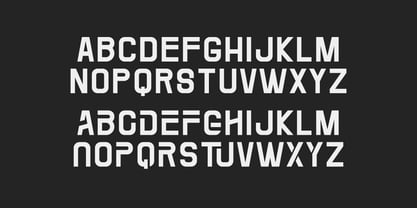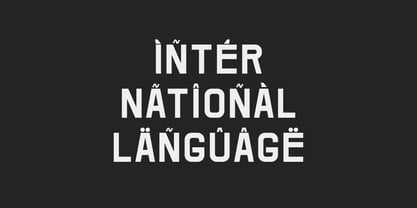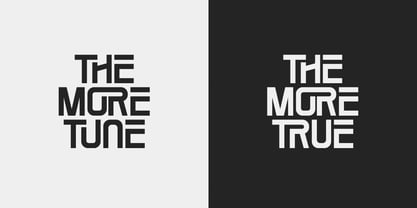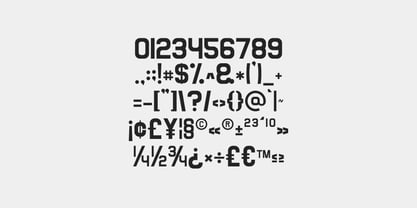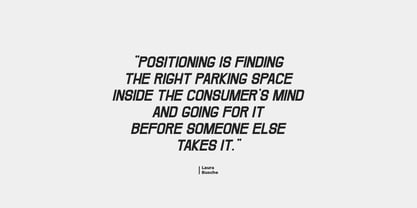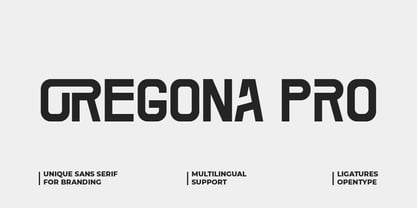
Oregona Pro
La famille de polices Oregona Pro a été conçue par Iwan Alwan et publiée par Artiveko. Oregona Pro contient 2 styles et options de package familial. En savoir plus sur cette famille
Oregona Pro is the full and polished evolution of the original Oregona typeface. Built as a modern geometric sans serif, this font combines clean structure with subtle uniqueness in every character. The letterforms are bold, balanced, and highly readable, making Oregona Pro perfect for logos, branding, posters, headlines, web design, packaging, and digital products. This complete version includes expanded multilingual support, refined alternates, and smooth spacing for professional typography results. Whether you’re designing for startups, tech brands, creative studios, or modern editorial layouts, Oregona Pro delivers clarity, strength, and contemporary style in every composition. Oregona Pro is not just a font — it’s a modern identity tool for confident design.
Concepteurs: Iwan Alwan
Fonderie: Artiveko
Artiveko is a font design team based in Indonesia, comprised of several talented font designers who commenced their careers in the font design industry in 2020. With a dedicated focus on crafting fonts, the team members bring their collective expertise and passion to every project they undertake. Situated in Indonesia, Artiveko draws inspiration from the vibrant cultural landscape of the region, infusing their creations with unique flavors and aesthetics.The team's font collection encompasses a diverse range of styles, including serif, sans serif, handwritten, and script typefaces. Each typeface is meticulously crafted to meet the demands of modern design while offering versatility and functionality across various applications. Whether it's the classic elegance of serif fonts, the contemporary appeal of sans serif designs, the personal touch of handwritten scripts, or the expressive flourishes of script fonts, Artiveko ensures that every font reflects their dedication to quality and innovation.Artiveko's fonts have garnered recognition and acclaim, with their works being featured on prominent social media platforms like Creative Market. Through these platforms, the team has been able to connect with a global audience of designers and typographers, further amplifying their reach and influence in the industry. Their fonts are celebrated for their impeccable craftsmanship, attention to detail, and ability to elevate design projects with style and sophistication.As Artiveko continues to evolve and expand its font collection, the team remains committed to pushing the boundaries of typography and setting new standards of excellence. With a relentless focus on creativity, innovation, and collaboration, Artiveko strives to inspire and empower designers around the world with their distinctive and versatile font designs.